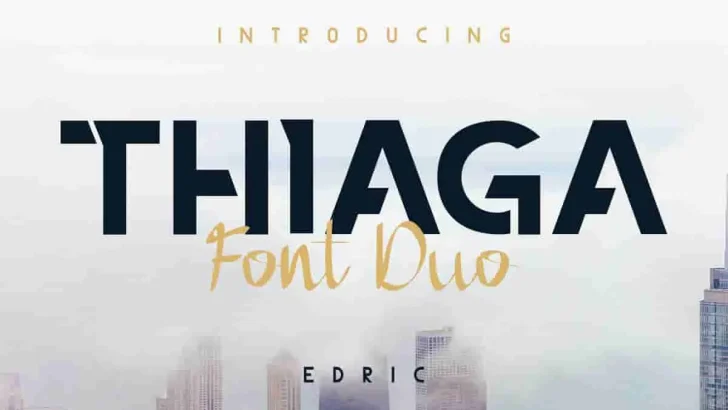
THIAGA ! This is a new modern font DUO : Sans and Script: Modern Futuristic Sans with mono-spaced look and script hand- writing style From EdricStudio